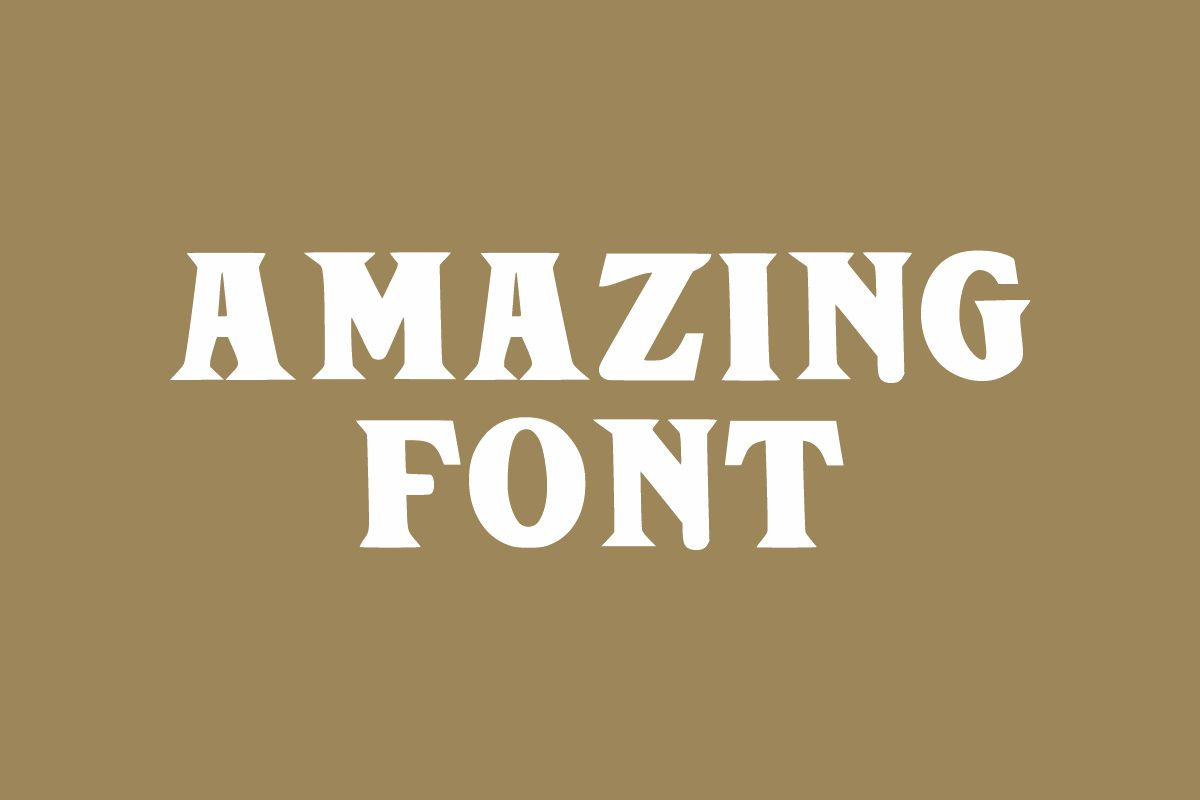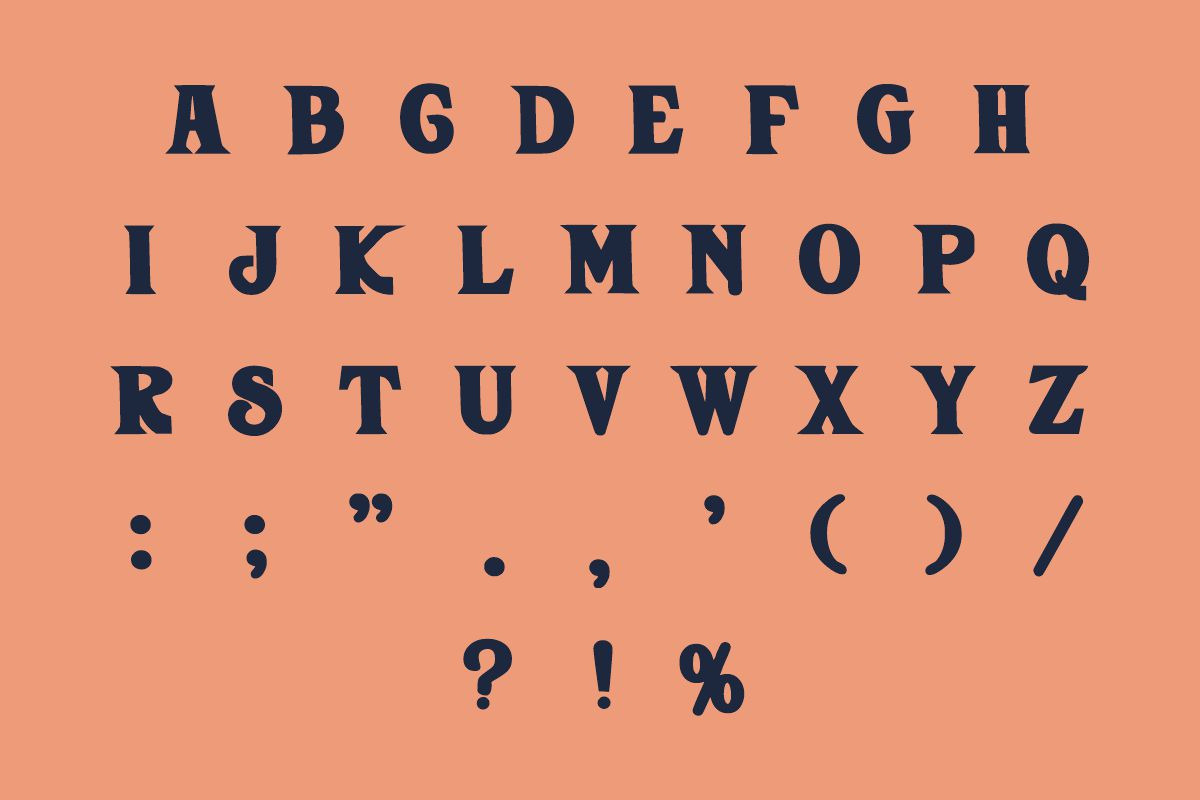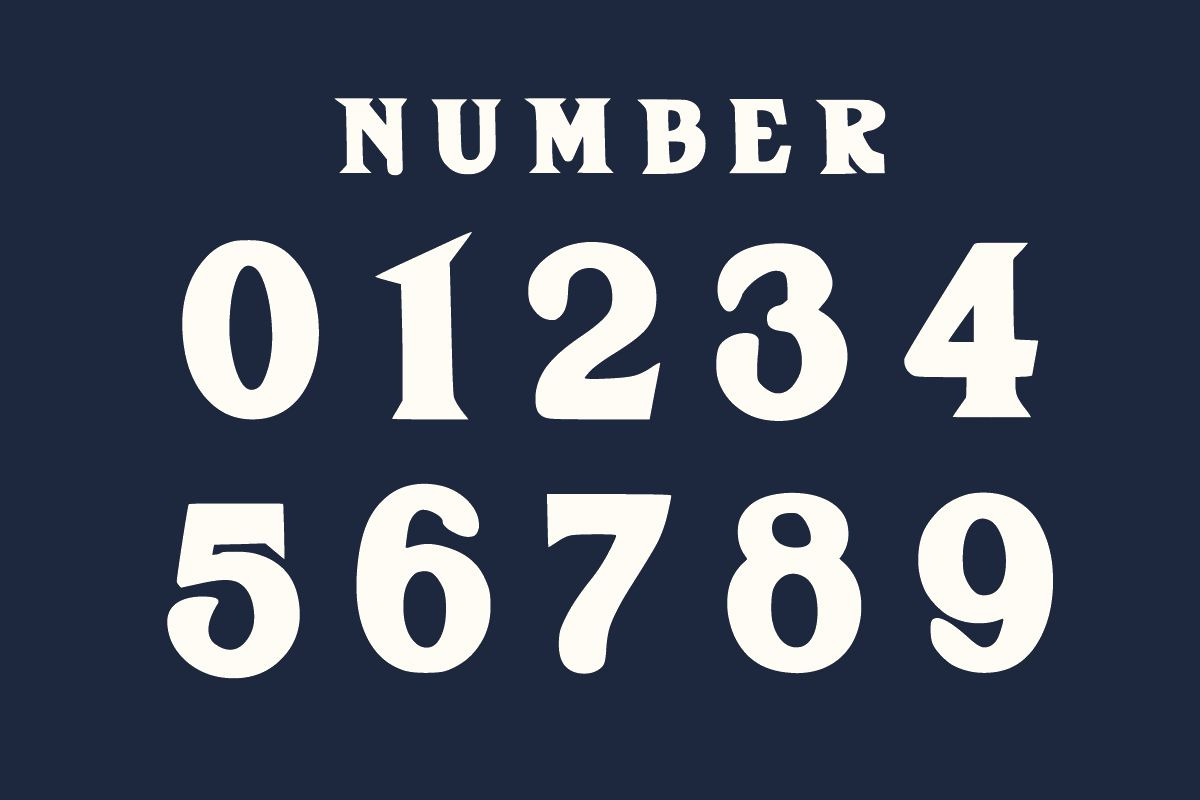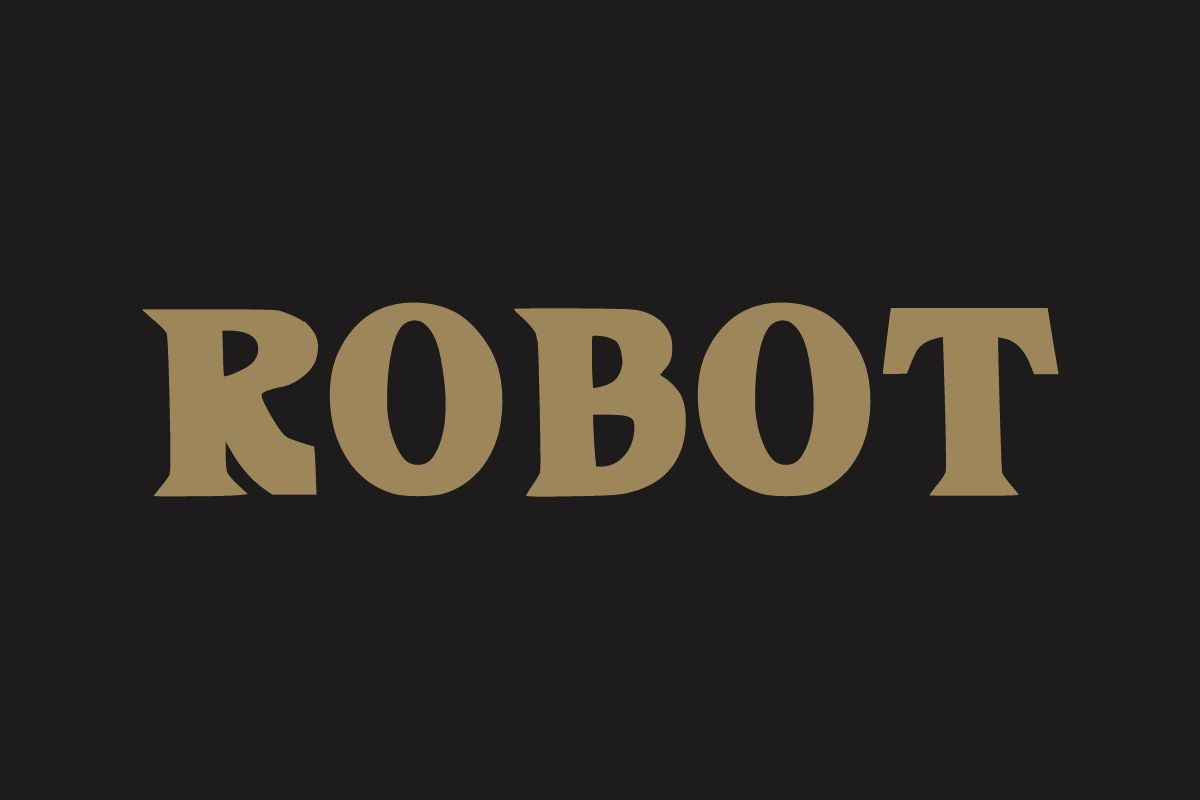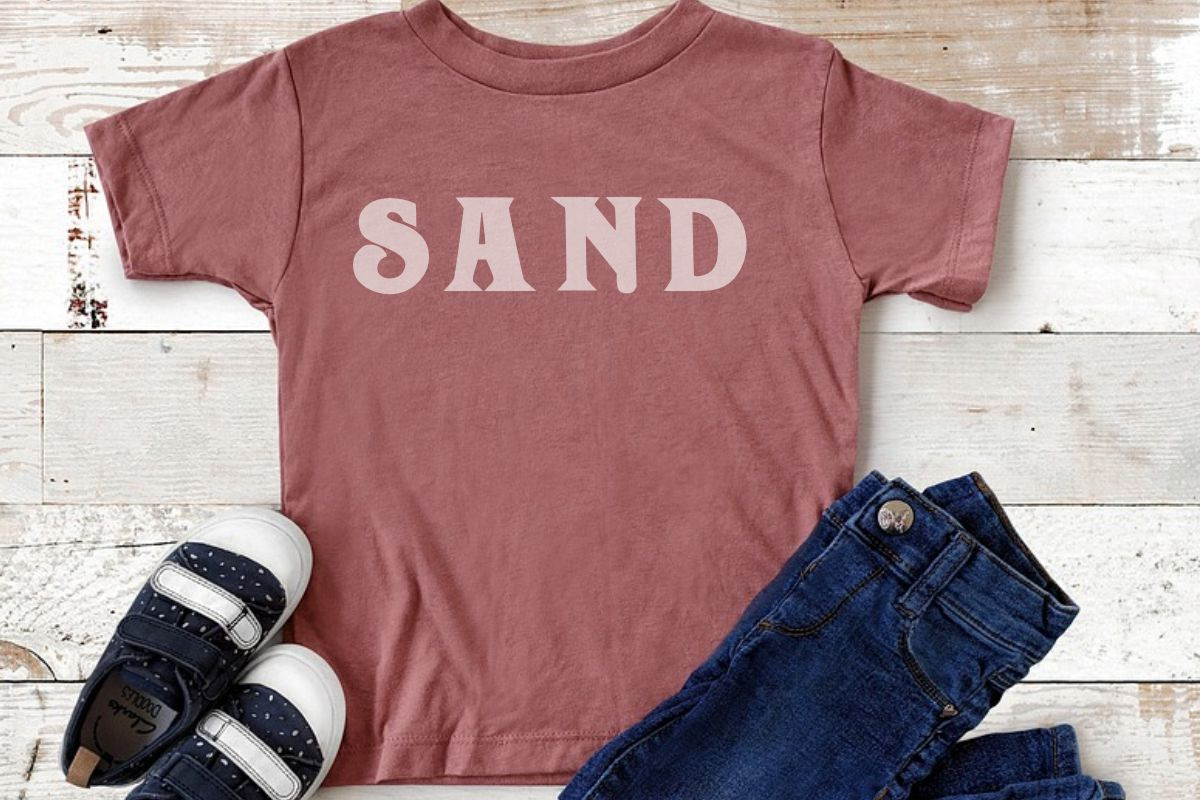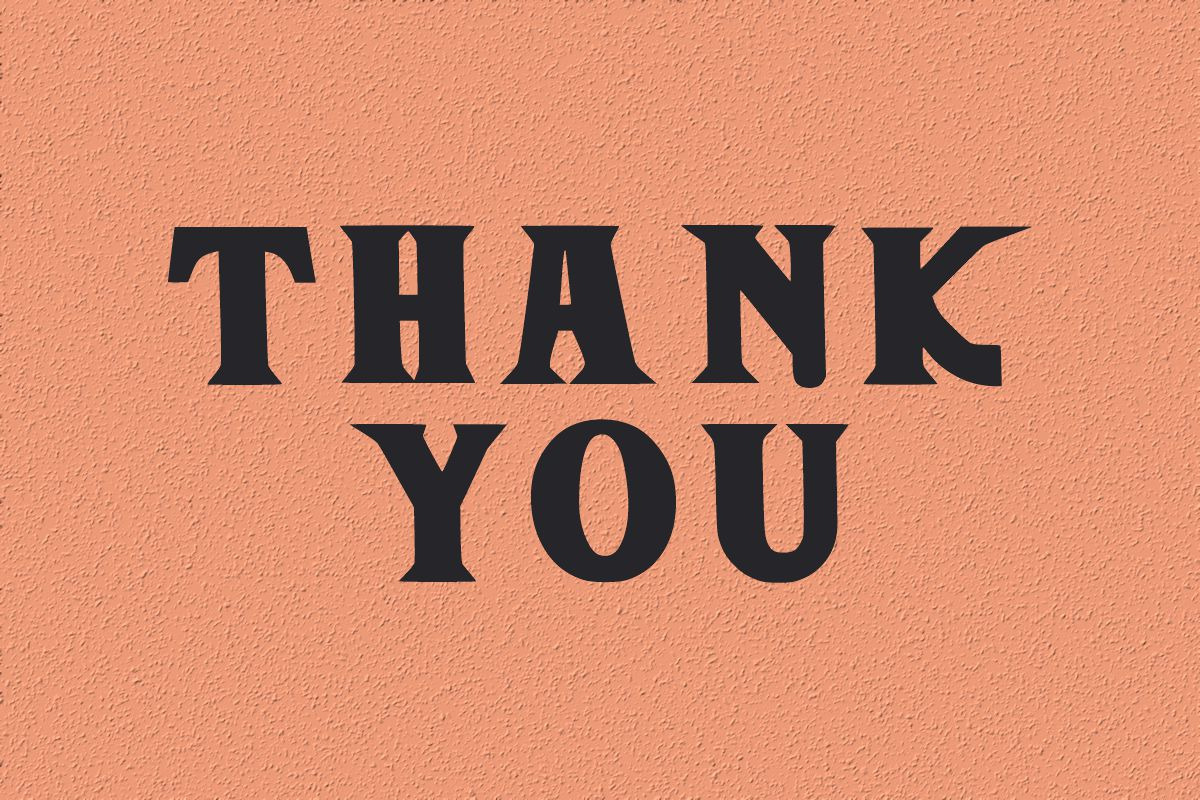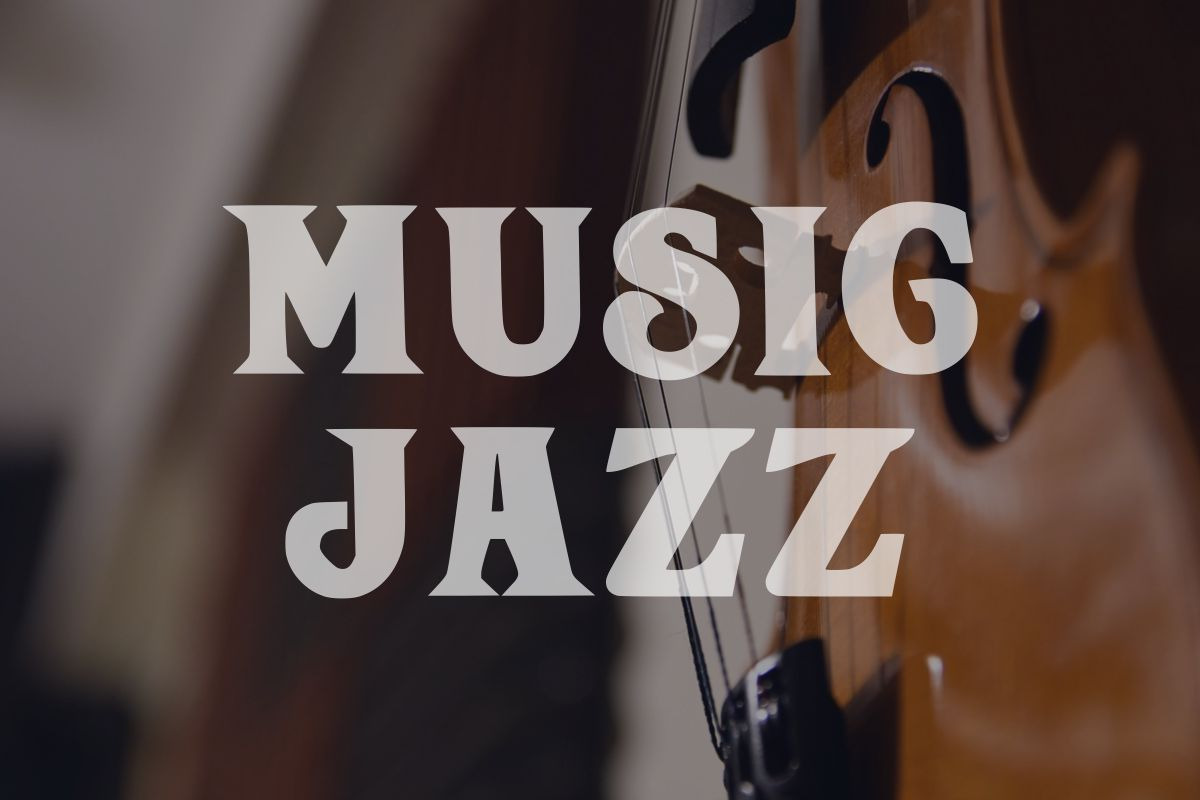
Seven Years
Seven Years is a stunning retro-styled display font. Its classic & vintage feel will be a great addition to many projects. It is perfect for headlines, sporting events, text effects, posters, logos, or monogrammed designs.